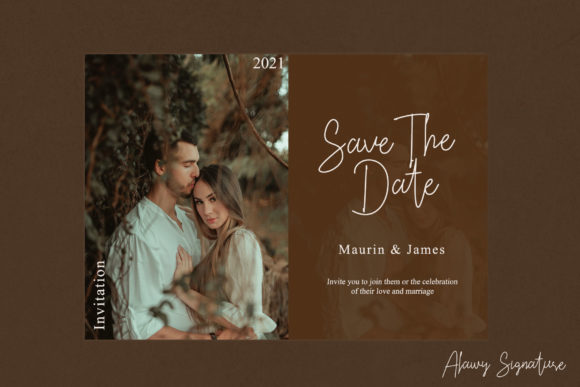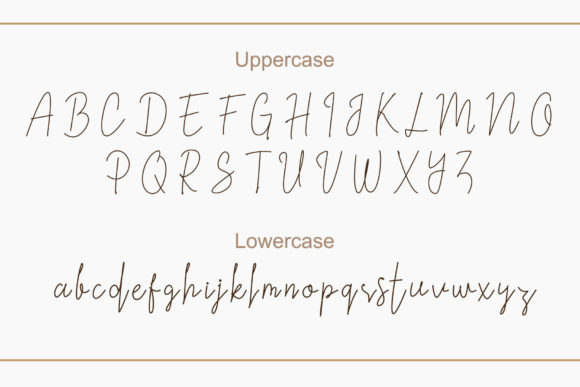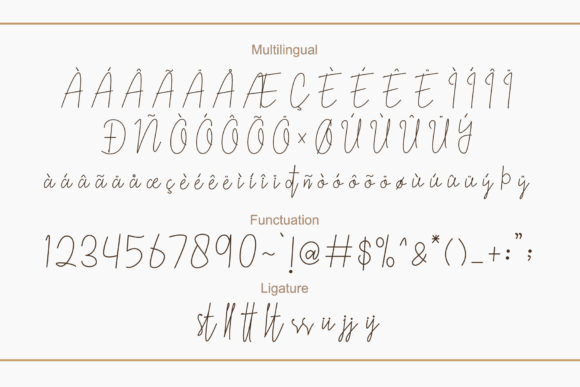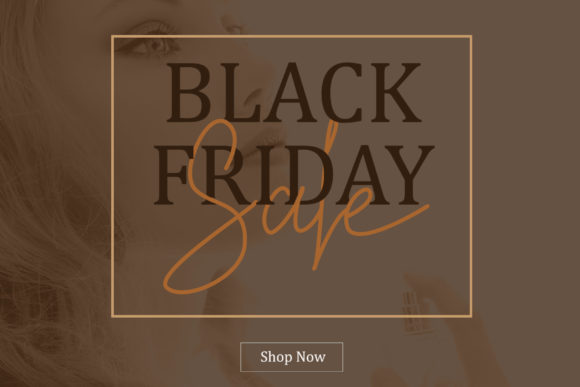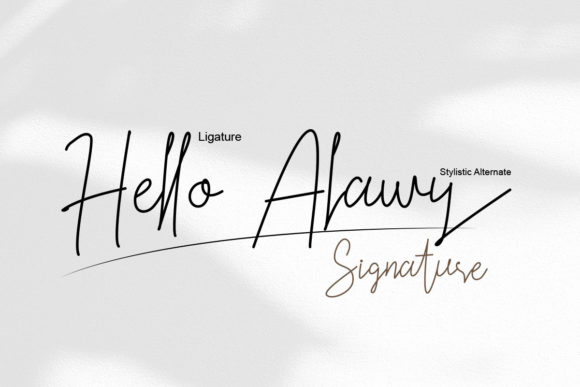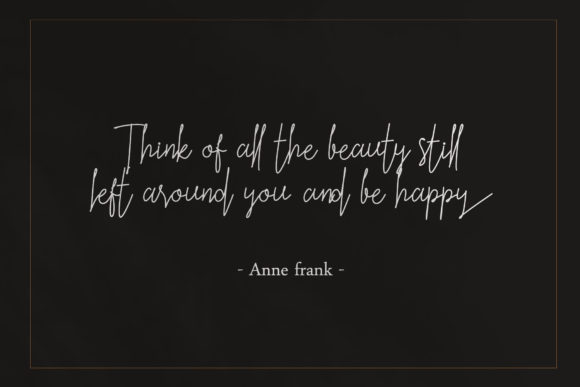
The Elusive Perfect Font: My Encounter with Alawy Signature
I’ll never forget the time I was working on a wedding invitation design project, and my client asked for a font that was ” elegant, yet playful; sophisticated, yet whimsical.” I scoured the internet, tried out countless fonts, but none seemed to fit the bill. That was until I stumbled upon Alawy Signature. 💕
This beautiful script font has a way of making your designs look effortlessly chic. In this article, I’ll share my experience with Alawy Signature, its features, and how to make the most of it in your designs.
An Honest Review of Alawy Signature
- 💫 Flowing and graceful script style that’s perfect for elegant designs
- ✅ PUA encoded for easy access to glyphs and ligatures
- 🎨 Highly versatile and can be used for a variety of design projects, from wedding invitations to branding
- 💥 Unique and distinctive style that sets it apart from other script fonts
While Alawy Signature is an amazing font, there are a few things to keep in mind:
- 🤔 May require some getting used to, especially for those who are new to script fonts
- ⚠️ Not suitable for body text or long blocks of text; best used for headings or titles
The Story Behind Alawy Signature
Alawy Signature was designed with the intention of creating a beautiful, elegant script font that would add a touch of sophistication to any design. The designer aimed to create a font that was both flowing and refined, with a unique personality that would set it apart from other script fonts.
A: PUA (Private Use Area) encoding allows you to access glyphs and ligatures easily, making it simpler to create beautiful designs.
Q: Is Alawy Signature suitable for body text or long blocks of text?
A: No, Alawy Signature is best used for headings or titles. It’s not suitable for body text or long blocks of text due to its script style.